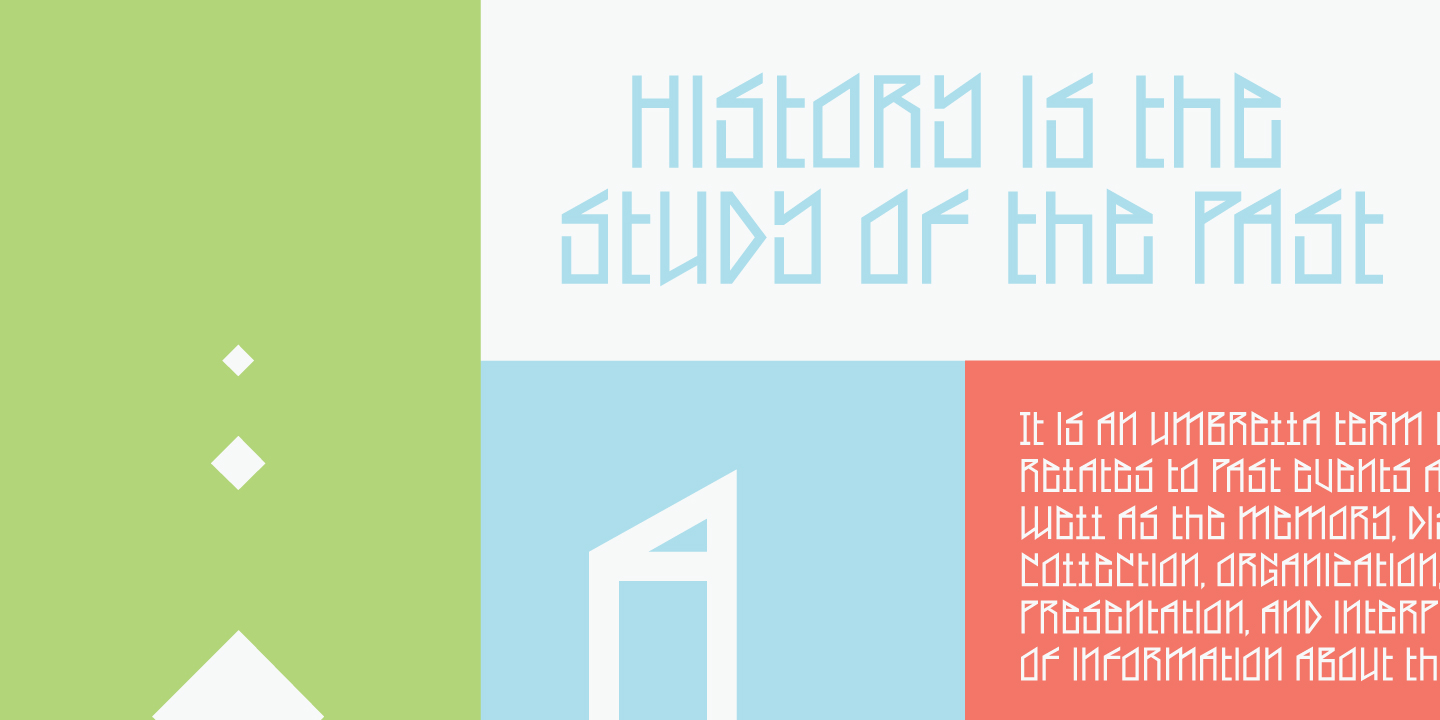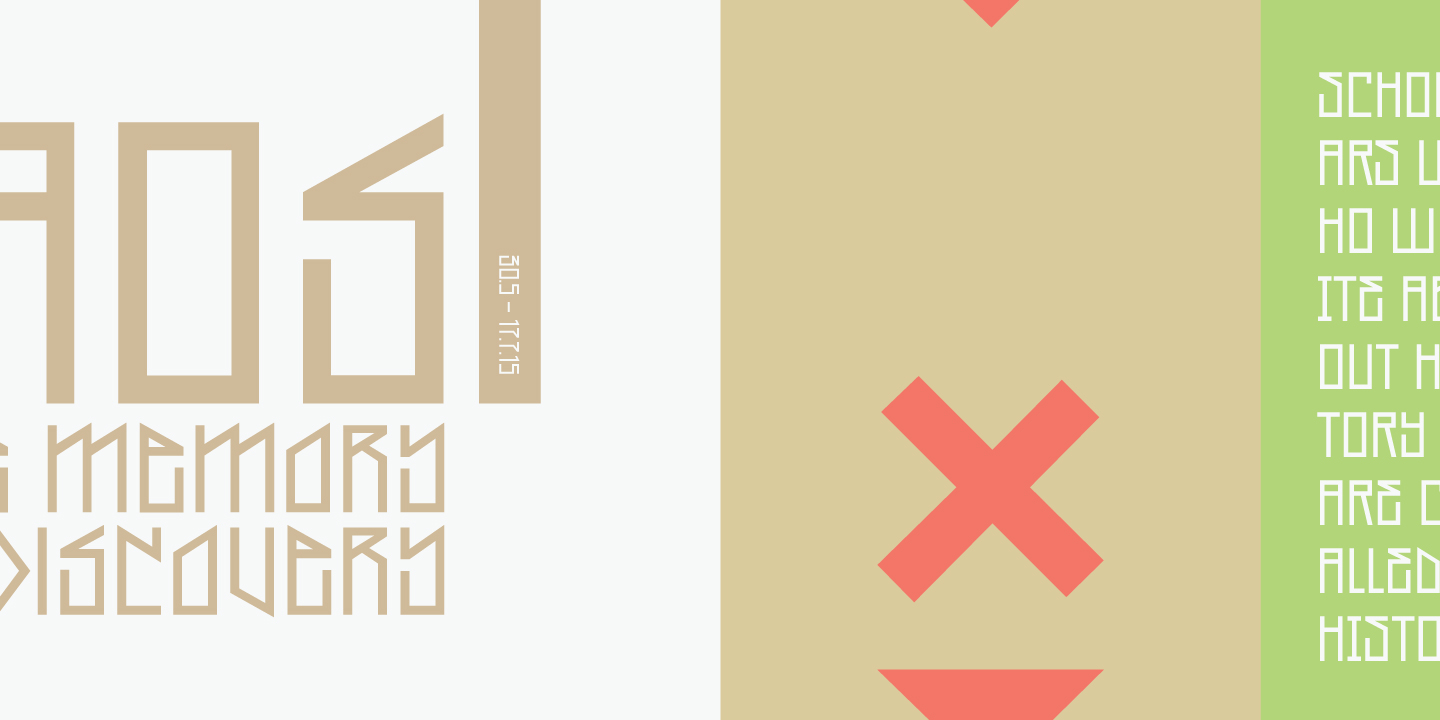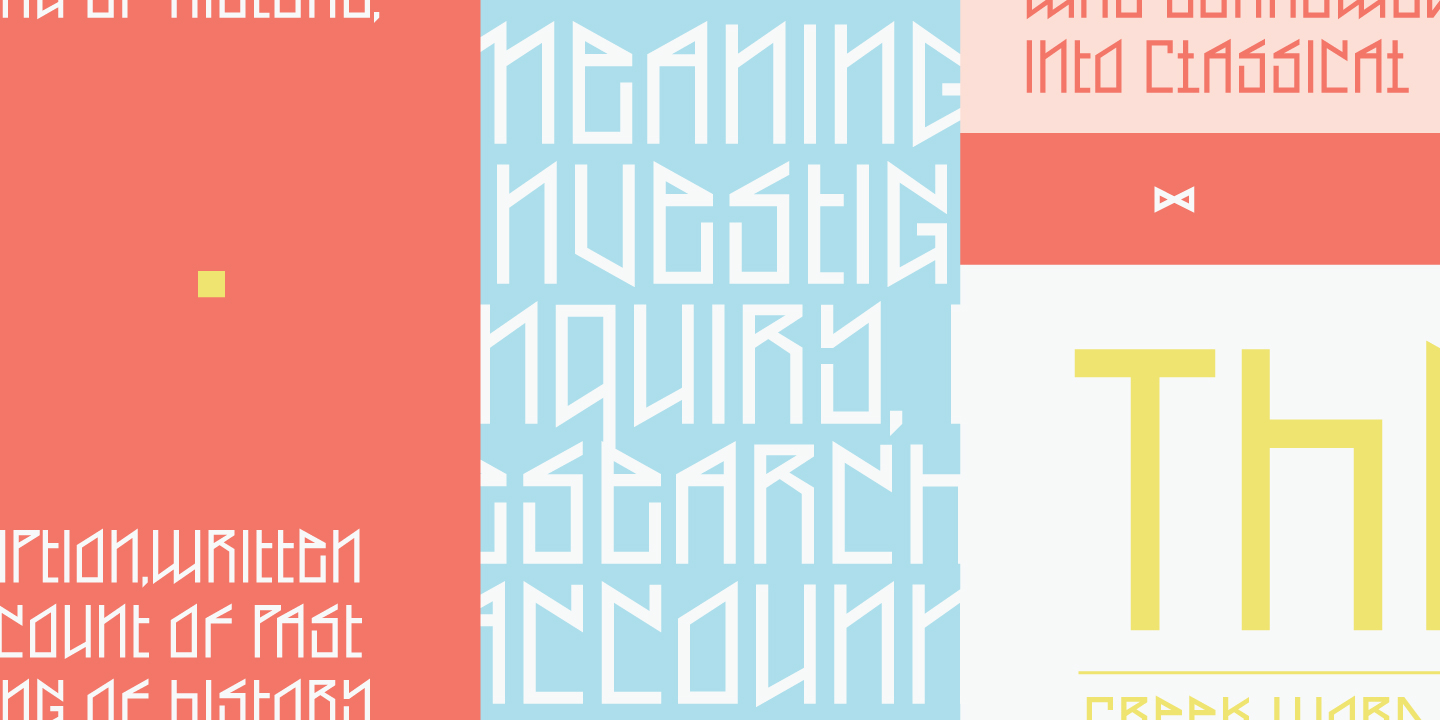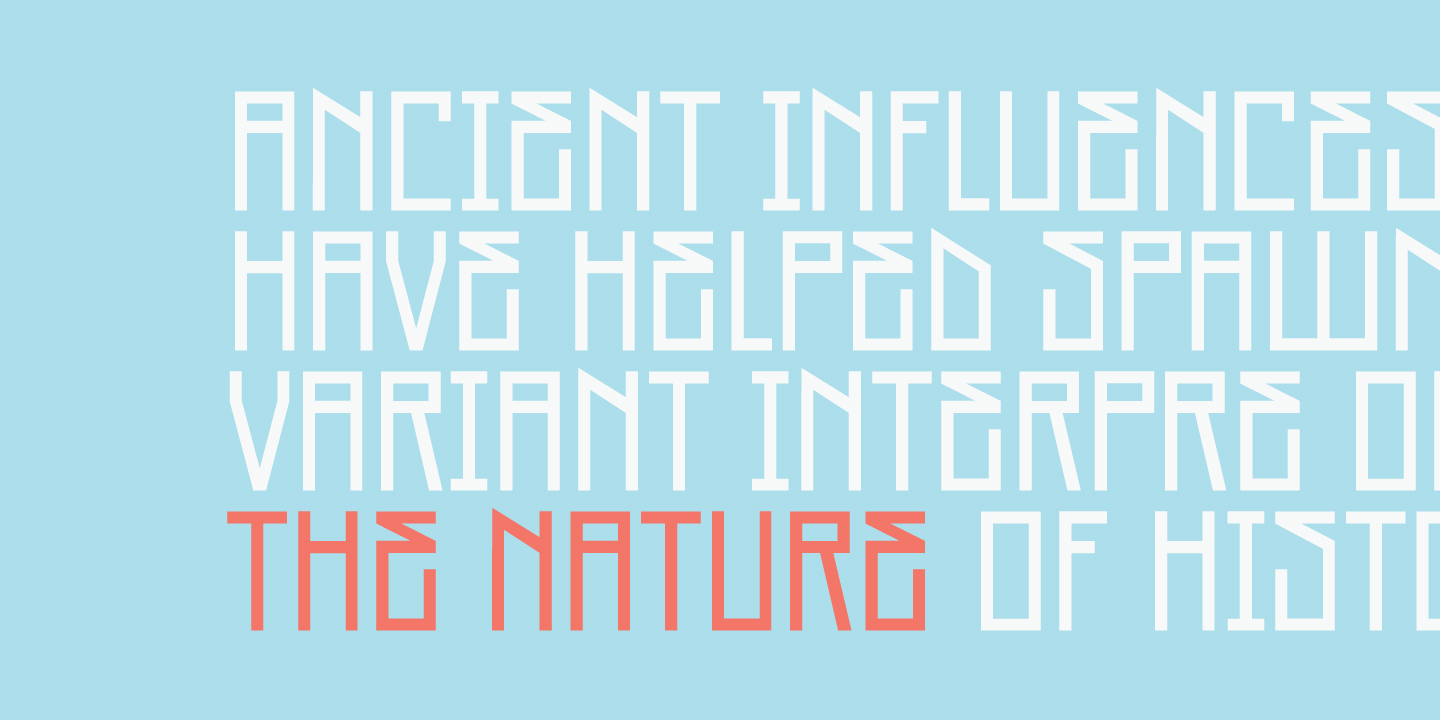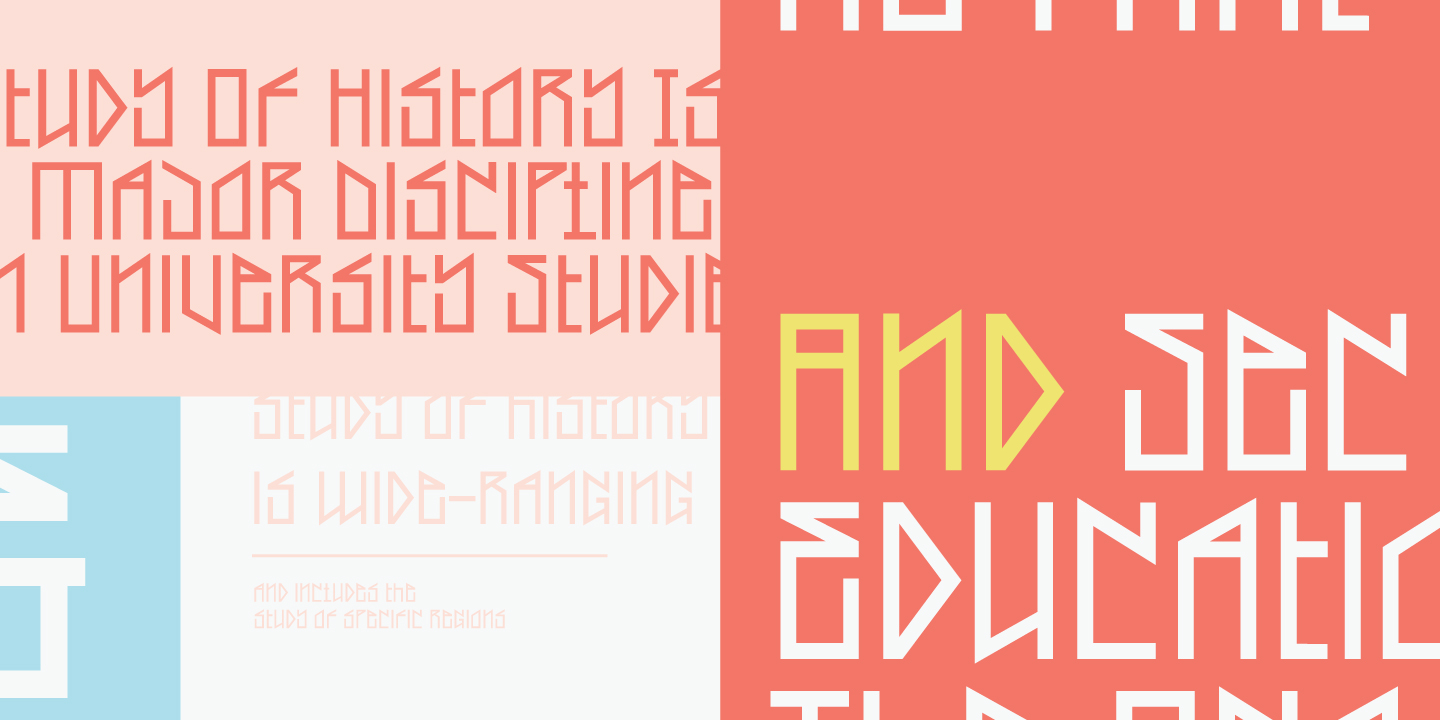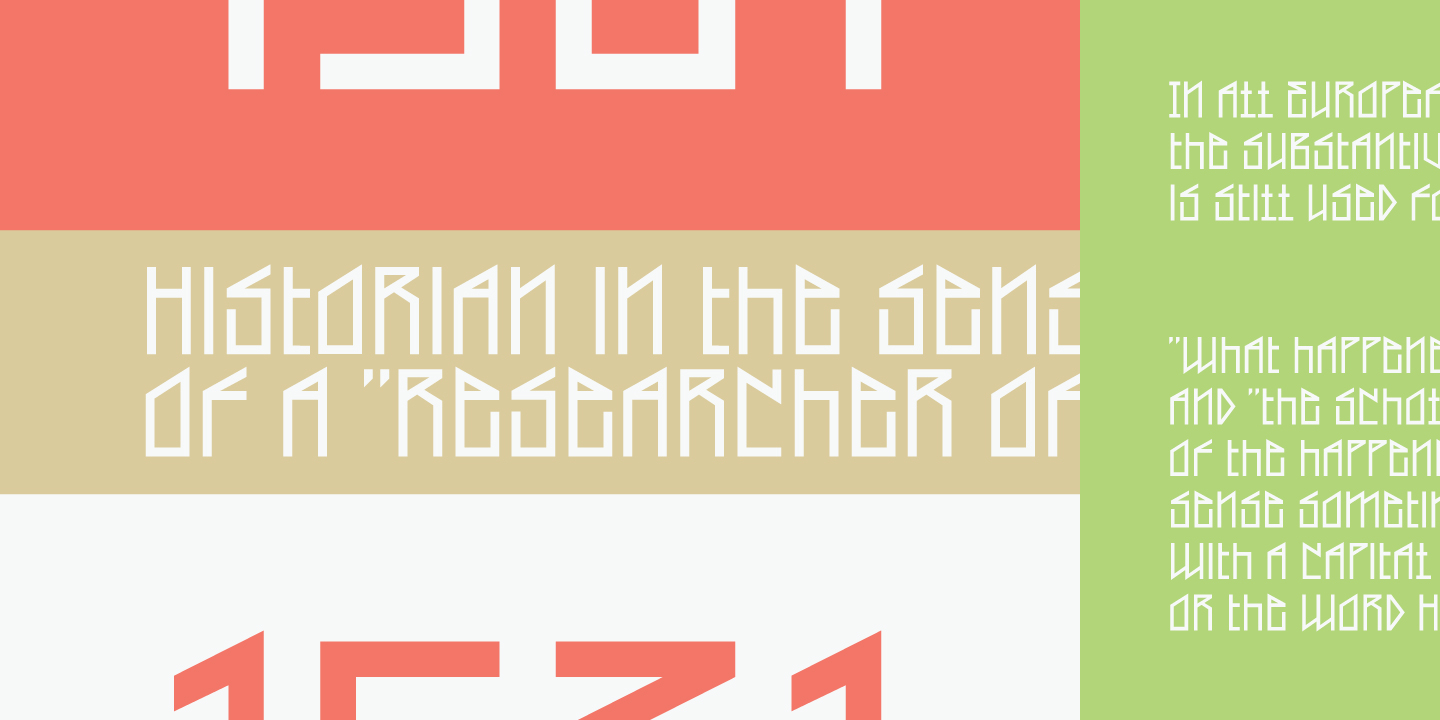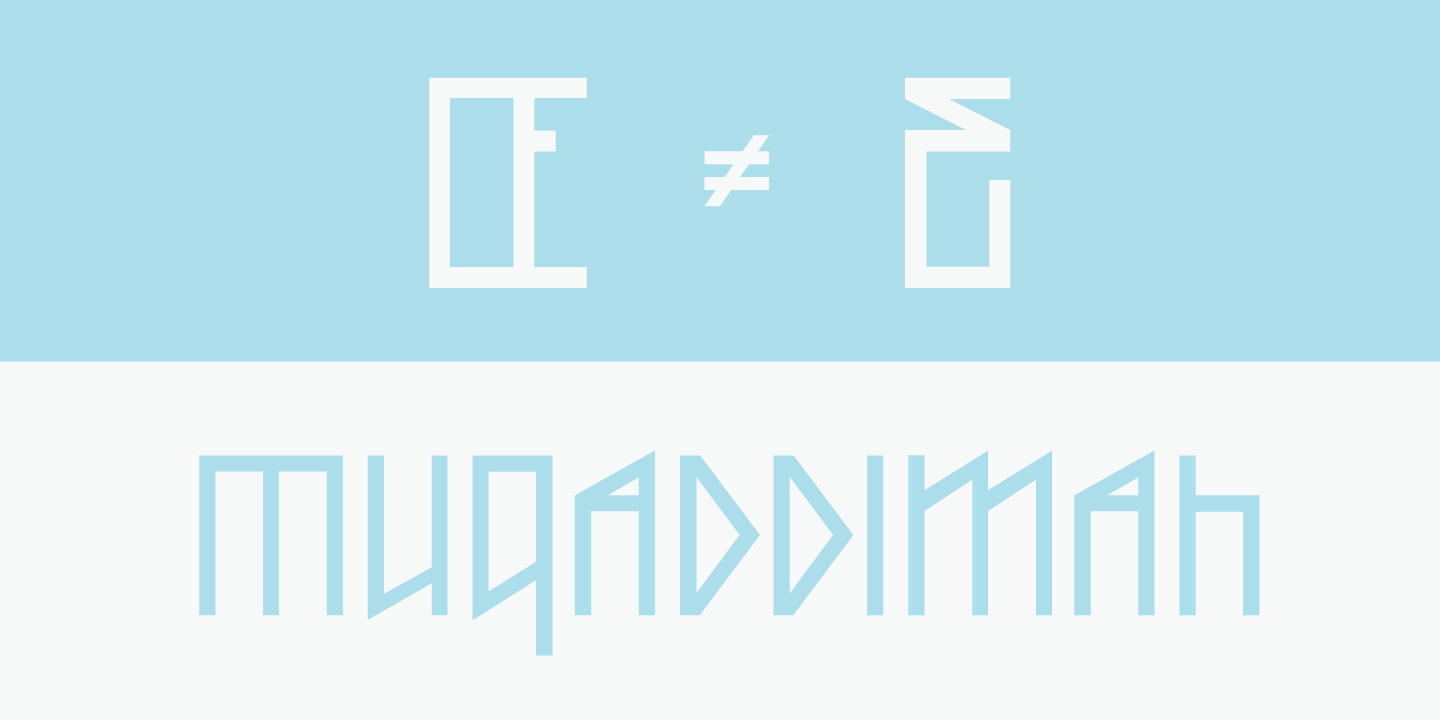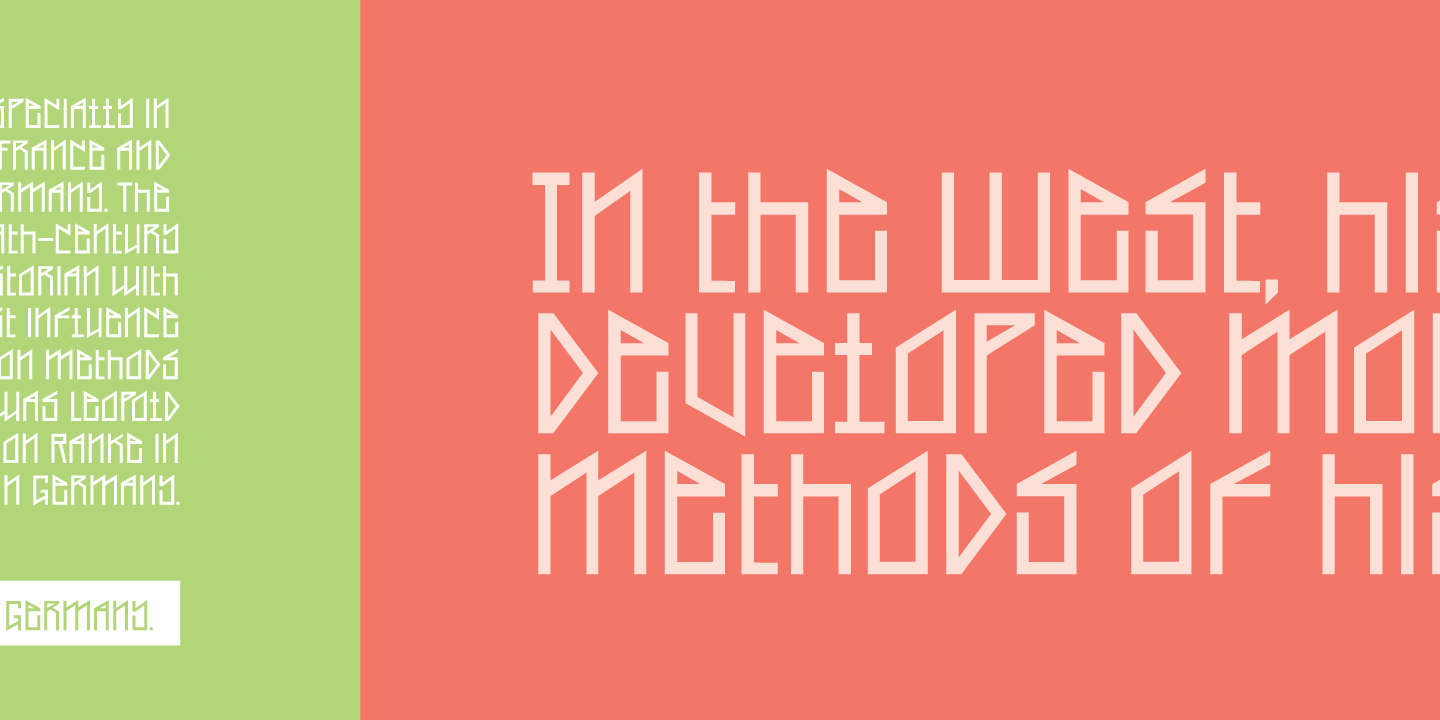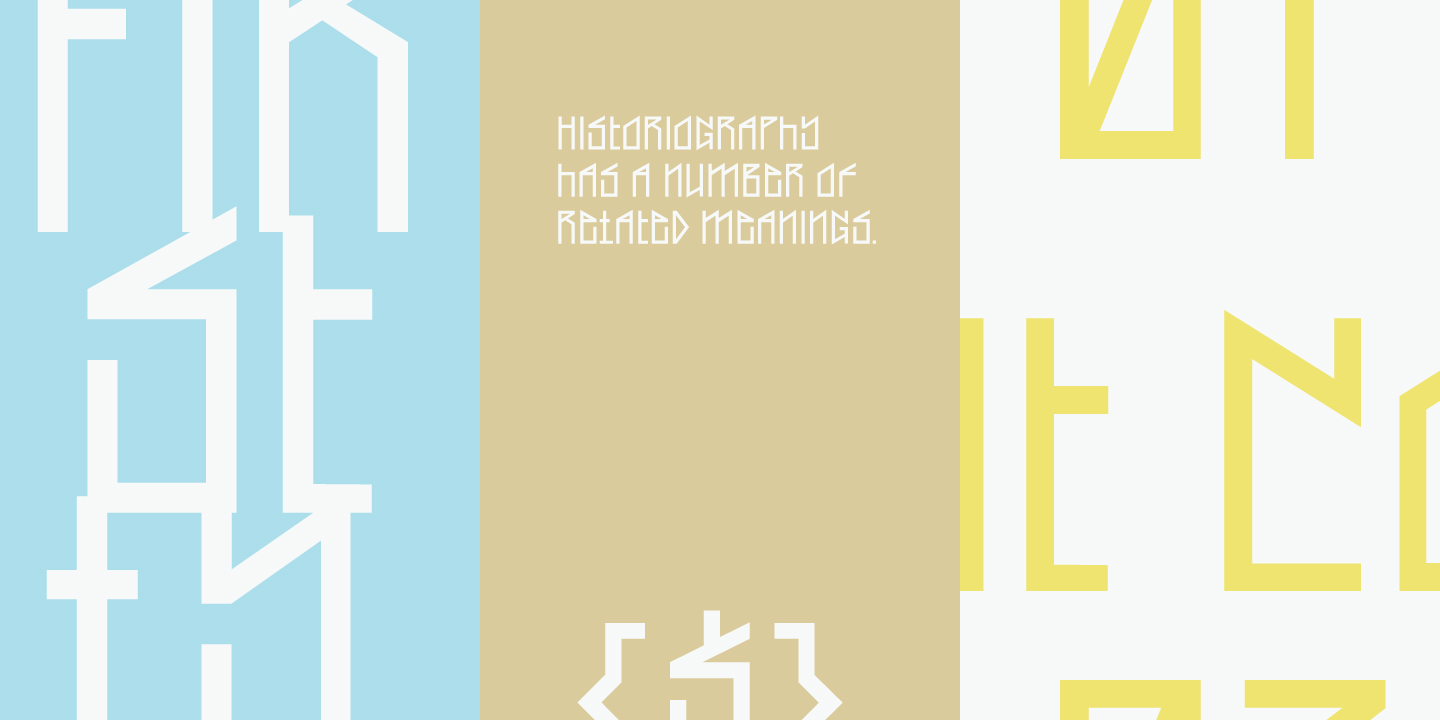
YWFT Pixacao is a type design inspired by the Brazilian Pixacao graffiti style and 1980’s American metal band logos. It is composed of sharp, geometric, and rhythmic diagonals capable of creating compelling patterns and interesting combinations of letter forms. YWFT Pixacao's upper case is the straight forward geometric aspect of the face, and it’s lower case introduces hard diagonals and alternates to the uppercase. This is a fully functioning typeface, punctuation, alternate ligatures, and accents included.